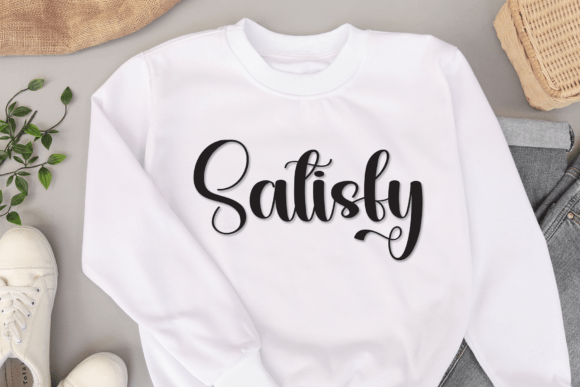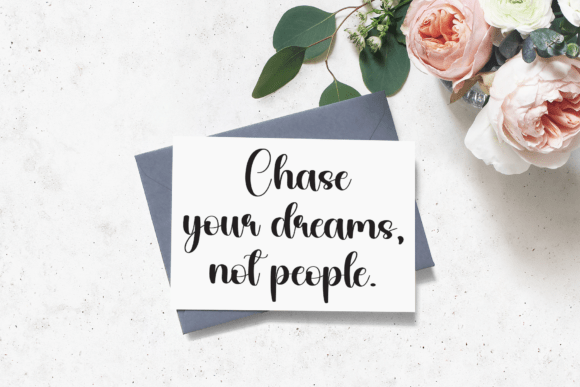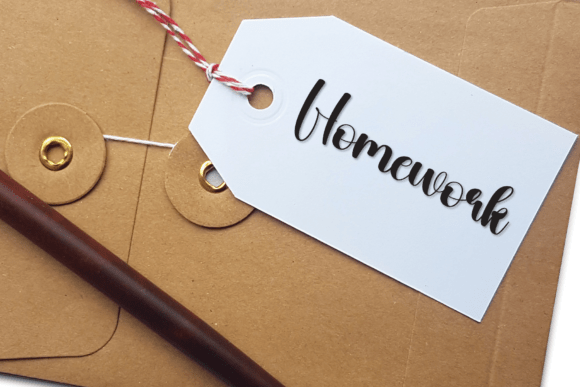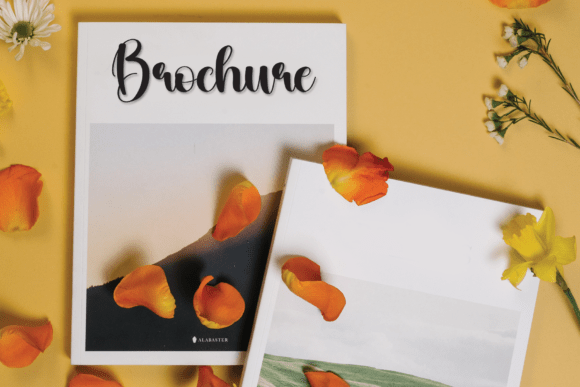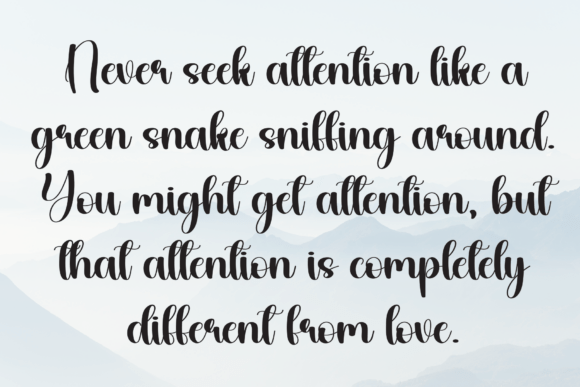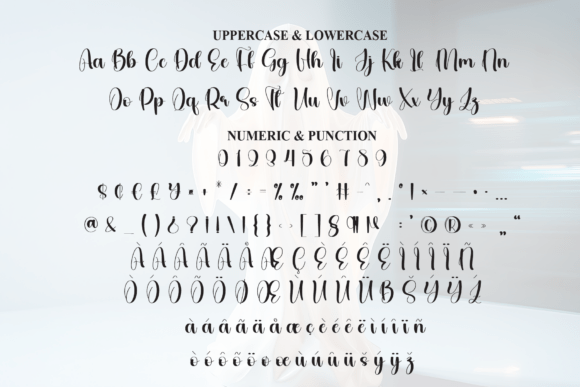
Introducing Ghosting Font: Elevate Your Designs with Elegance and Sophistication
In the world of typography, a well-crafted font can make all the difference in elevating a design from ordinary to extraordinary. For designers and crafters seeking to add a touch of elegance and contemporary charm to their projects, Ghosting Font is an exceptional choice. This stylish script font is designed to capture the beauty of hand-drawn calligraphy with a modern twist, making it perfect for a wide range of applications.
The Beauty of Ghosting Font
Ghosting Font boasts graceful strokes, fluid curves, and carefully crafted letterforms that exude refinement and sophistication. Its natural flow and polished details make it an ideal choice for designs that require a high level of elegance and poise. Whether you’re creating logos, invitations, packaging, or social media graphics, Ghosting Font adds a refined and sophisticated touch that is sure to impress.
Key Features of Ghosting Font
- Elegant Script Design: Ghosting Font features a stylish script design that is perfect for creating beautiful and sophisticated text.
- Graceful Strokes and Fluid Curves: The font’s carefully crafted letterforms and fluid curves give it a natural flow that is reminiscent of hand-drawn calligraphy.
- Versatility: Ghosting Font is suitable for a wide range of design applications, including logos, invitations, packaging, and social media graphics.
- Polished Details: The font’s polished details make it perfect for designs that require a high level of refinement and sophistication.
Why Choose Ghosting Font?
For designers and crafters seeking to elevate their designs with a touch of elegance and sophistication, Ghosting Font is an exceptional choice. Here are just a few reasons why:
- Unique and Memorable: Ghosting Font’s stylish script design makes it perfect for creating unique and memorable designs that stand out from the crowd.
- Easy to Read: Despite its elegant design, Ghosting Font is easy to read, making it perfect for body text and headlines.
- Highly Versatile: The font’s versatility makes it suitable for a wide range of design applications, from logos and invitations to packaging and social media graphics.
- Time-Saving: With Ghosting Font, you can create professional-looking designs in a fraction of the time it would take to create them from scratch.
Design Applications for Ghosting Font
Ghosting Font is suitable for a wide range of design applications, including:
- Logos: Create stunning logos that exude elegance and sophistication with Ghosting Font.
- Invitations: Add a touch of refinement and poise to your invitations with Ghosting Font.
- Packaging: Elevate your packaging designs with Ghosting Font’s stylish script design.
- Social Media Graphics: Create stunning social media graphics that stand out from the crowd with Ghosting Font.
In conclusion, Ghosting Font is an exceptional choice for designers and crafters seeking to add a touch of elegance and sophistication to their designs. With its stylish script design, graceful strokes, fluid curves, and carefully crafted letterforms, Ghosting Font is perfect for a wide range of design applications. Whether you’re creating logos, invitations, packaging, or social media graphics, Ghosting Font delivers both versatility and visual appeal.